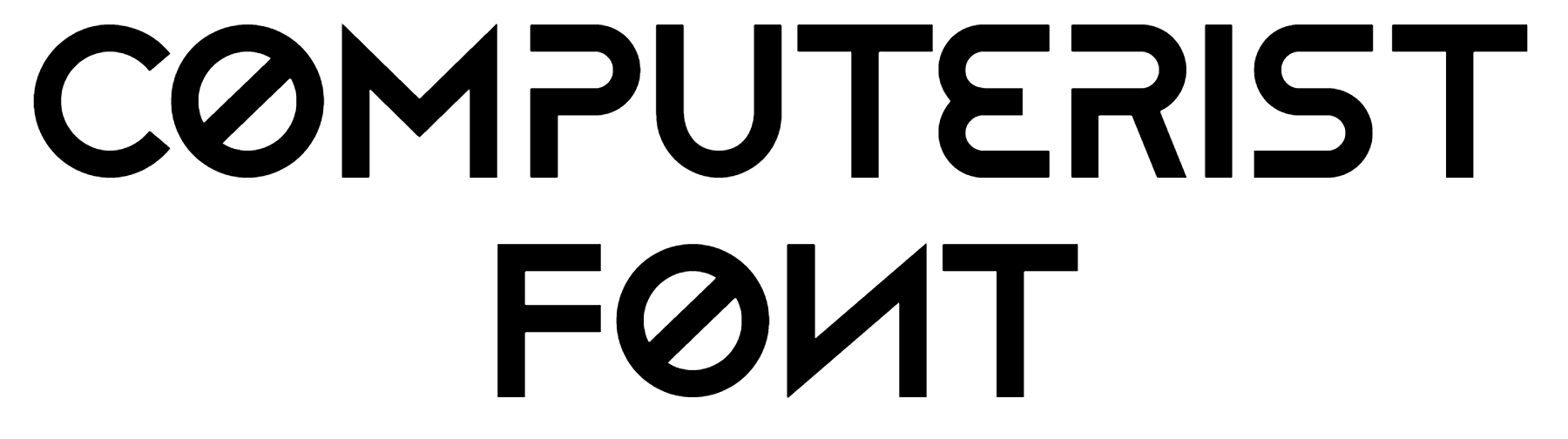
Computerist
Computerist is a techno font created by Vladimir Nikolic (2023). Squared-off, geometric letters give it a digital, high-tech feel. It's a free download, and you can try it with your own text in the preview above first.
What You Can Type With Computerist
With complete upper and lowercase letters and all ten digits, Computerist is ready for real wording, not just a single headline. Common punctuation such as ! and ? is included as well. It doesn't include accented letters such as é or ñ, which makes it an English-only font.
Where Computerist Works Best
Designers usually reach for fonts like Computerist when they're making gaming logos, tech branding and futuristic posters. Try it on a dark background with a bright accent color for a sharp, modern look.
Who designed Computerist font?
Does Computerist support accented letters?
No. Computerist has no accented letters such as é, ñ or ü, so it's best for English text.
What fonts pair well with Computerist?
A simple sans serif like Roboto keeps longer text easy to read next to it.